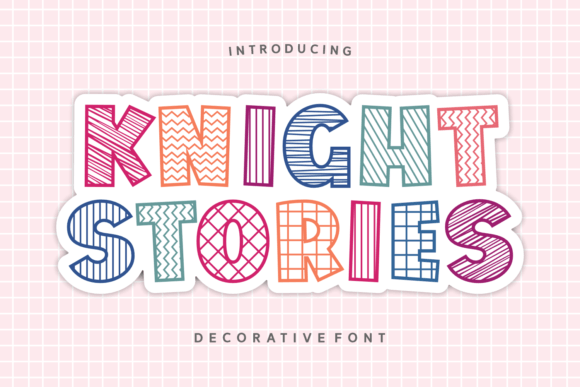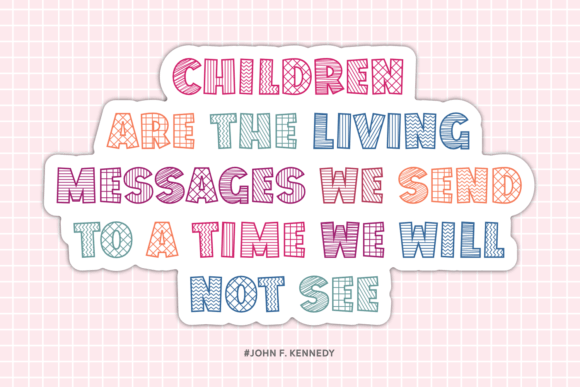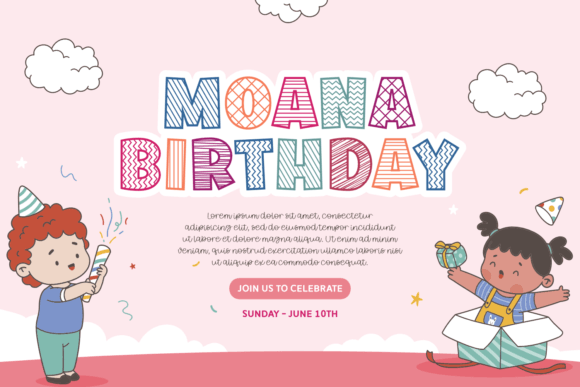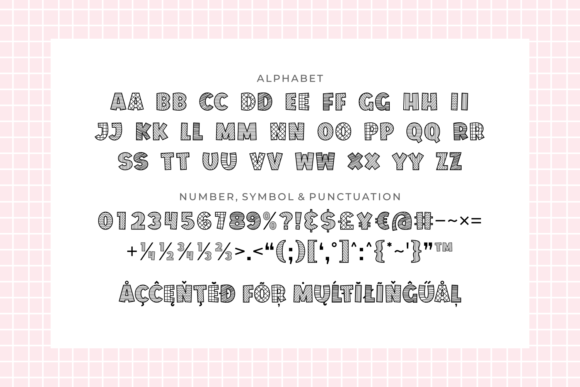
Knight Stories Font: A Playful Decorative Font for DIY & Craft!
About the Knight Stories Font
Unleash your creativity with Knight Stories Font, a versatile font perfect for a wide range of applications. Discover the mesmerizing charm of Knight Stories, a masterfully crafted font steeped in the whimsical world of paper craft enchantment. Its distinguished style elegantly highlights your DIY craftworks, kid-centric designs, and more, all while infusing a unique stylistic touch. Blending splendour and function, Knight Stories emerges as both a feast for the eyes and a typographic gem.
Knight Stories thrives in headline applications, short-form text on packaging, and playful branding projects where its handcrafted charm adds personality. It’s ideal for children’s books, greeting cards, or whimsical posters. However, its decorative nature makes it unsuitable for body text or UI elements requiring high readability.
The font’s personality is cheerful and slightly whimsical, yet sophisticated. To complement this, pair Knight Stories with a clean sans-serif like Open Sans for body copy, or a classic serif like Garamond for a more formal contrast. For a more playful pairing, consider a rounded geometric sans-serif such as Poppins.
Avoid using Knight Stories in situations demanding high legibility, such as long-form content or user interfaces. Its strength lies in making a bold, memorable statement, not in facilitating effortless reading.